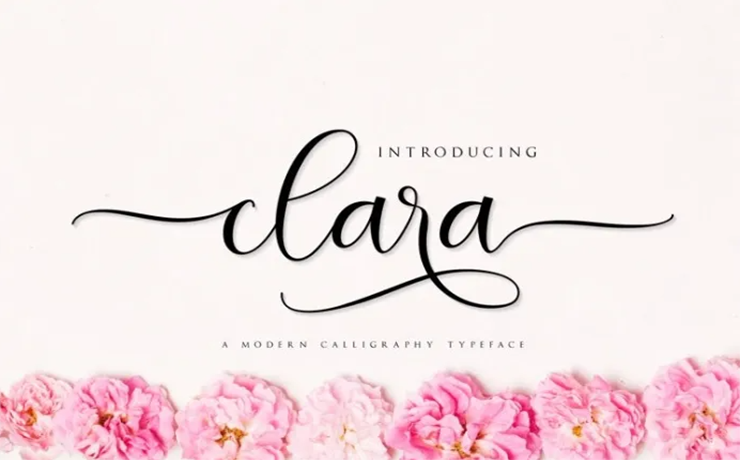
Introducing Clara Font! It’s an elegant modern calligraphy typeface with a natural & stylish flow. It is perfect for stylish logos, stationery, invitation, quote, social media, websites, and more.
NanaNissa took the charge of designing it and publishing this stylish-looking typeface for the first time.
The creator of this font creates thin and smooth corner edges which is the main reason for the popularity of this typeface. The font looks modern that is clean, fast, and attractive.
The font also has a calligraphic touch that gives you a great layout. This typeface can be used as a pair in combination which gives you the best setting.
See, a luxurious calligraphy font with an authentic, perfect feel.
It is a really memorable choice for things like logos, invitations, stationery, wedding designs, social media posts, advertisements, labels, special events, or anything.
You can use this typeface as good font pair with Lovely Home Font by Suthi Srisopha, Valentina Font by Roy Jorse.
There is only one version of this font including Regular. This style also supports lowercase letters, alternates, multilingual symbols, numerals, and punctuation.